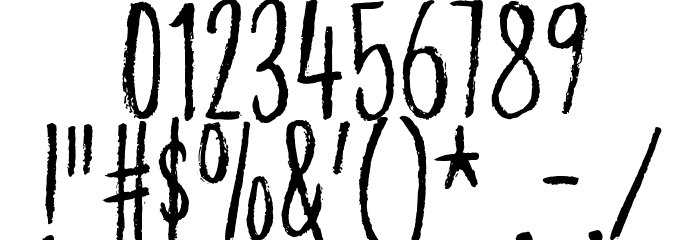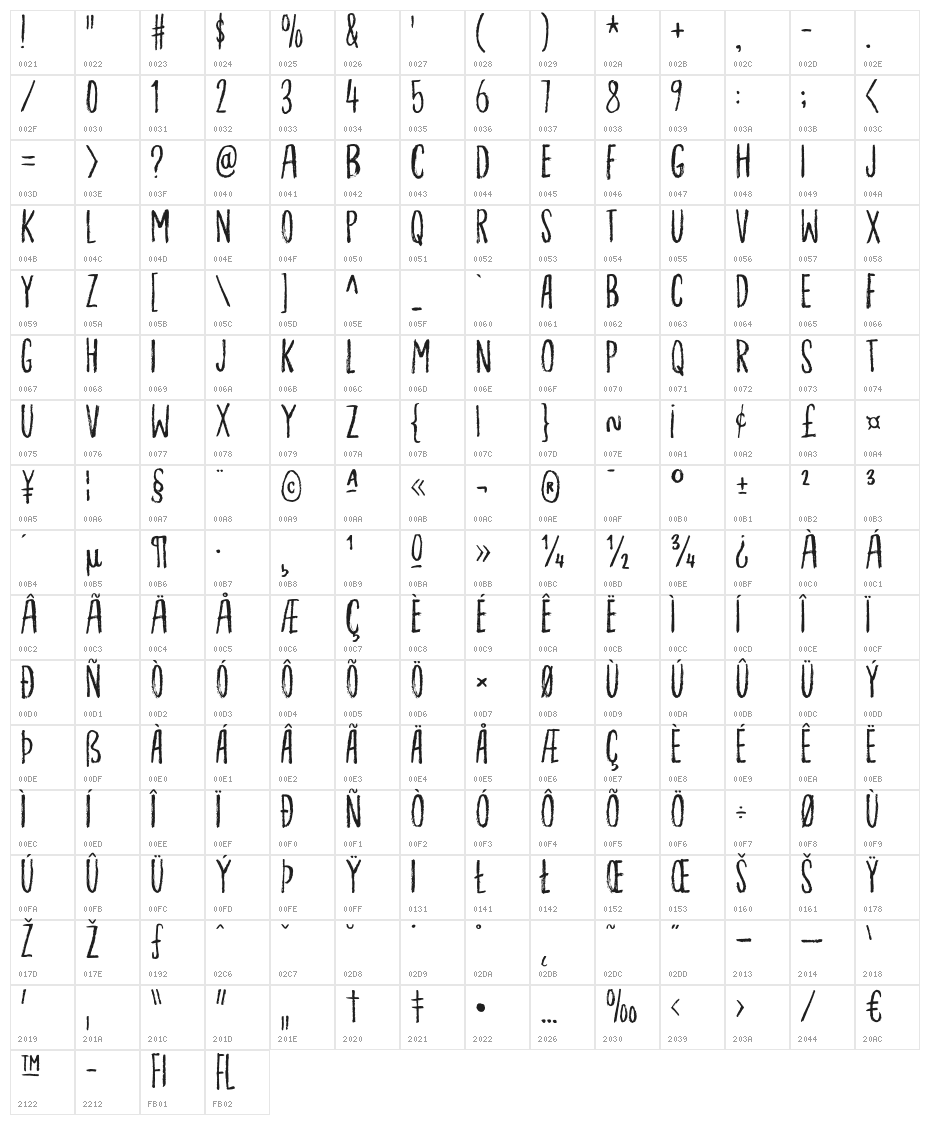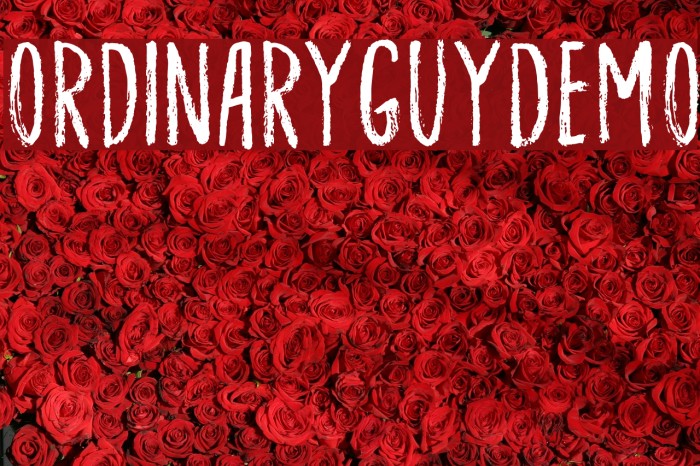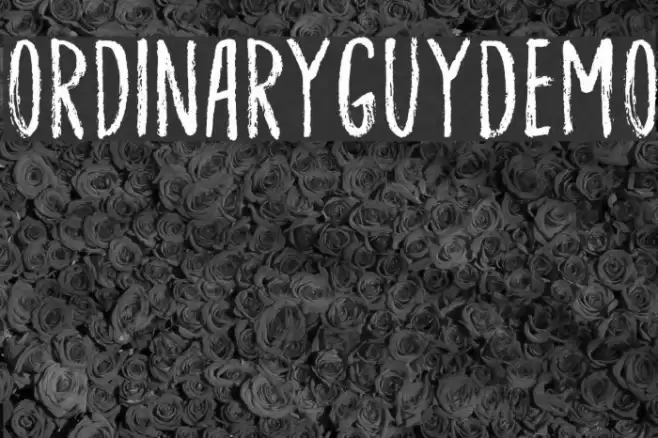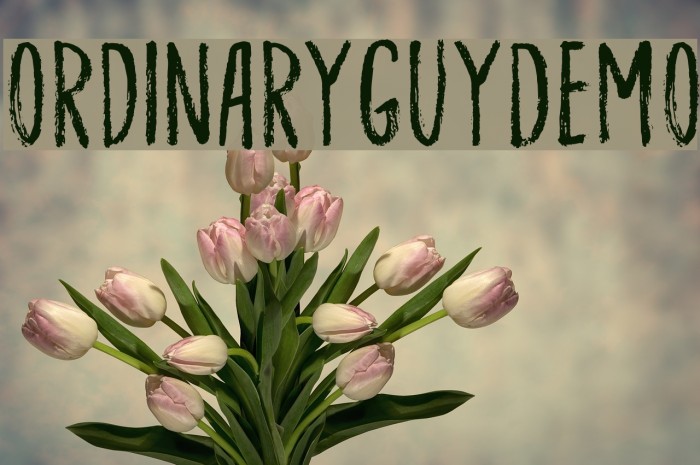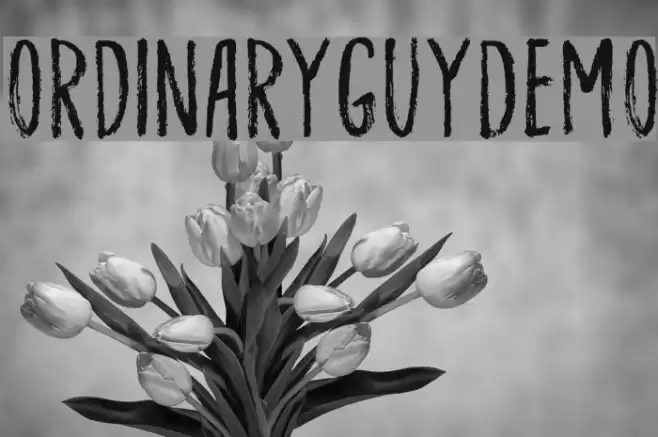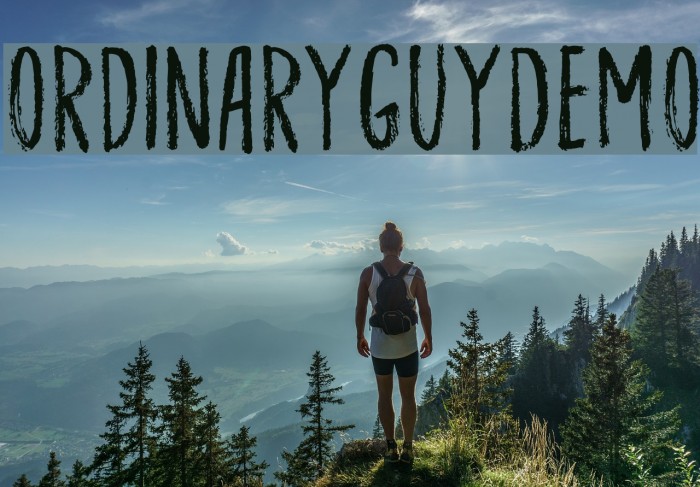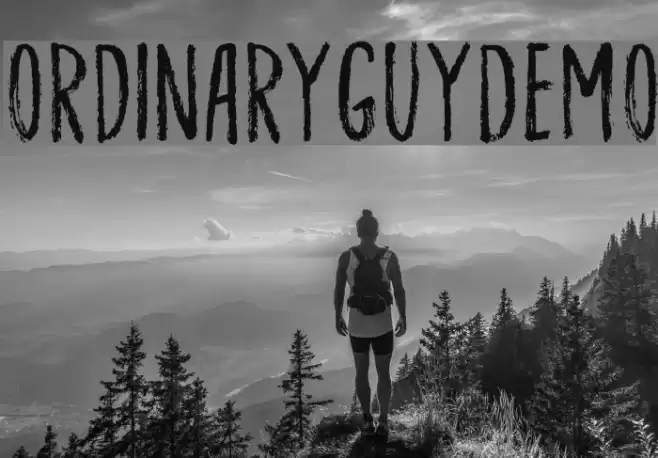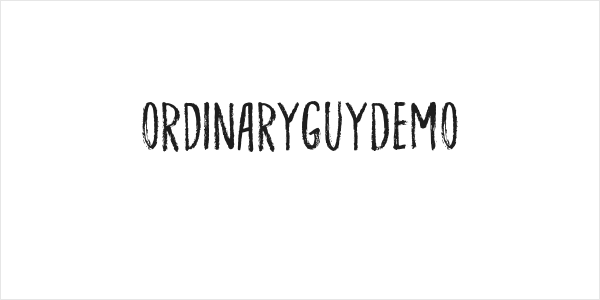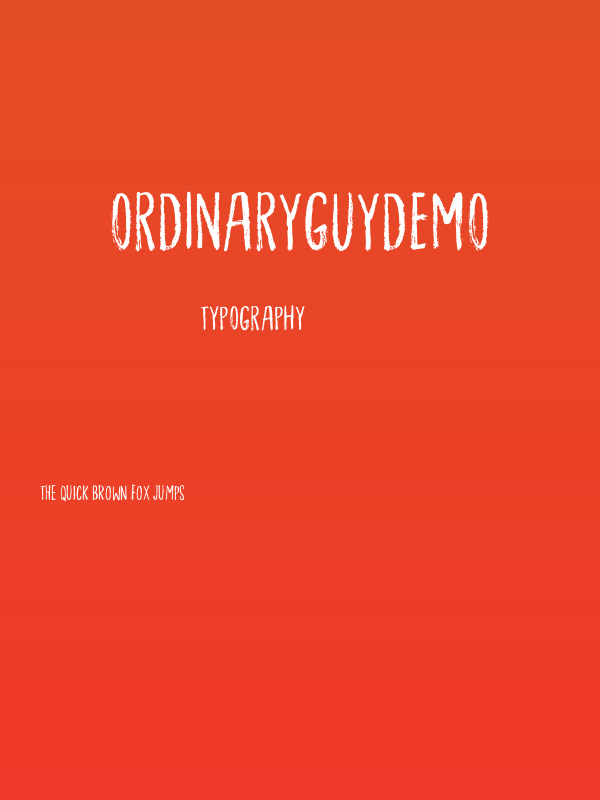
OrdinaryGuyDEMO Font
OrdinaryGuyDEMO Description
This font features a hand-drawn, textured style that gives it a rugged and organic appearance. The characters are tall and narrow, with uneven edges that create a sense of movement and energy. The uppercase and lowercase letters maintain a consistent height, contributing to a cohesive look. Numbers and special characters are designed with the same textured effect, ensuring uniformity across all glyphs. The font's unique, distressed look makes it ideal for projects that require a personal, handcrafted touch.
| Proposed Projects | Ideal for posters, album covers, branding, and any project needing a handcrafted, artistic touch. |